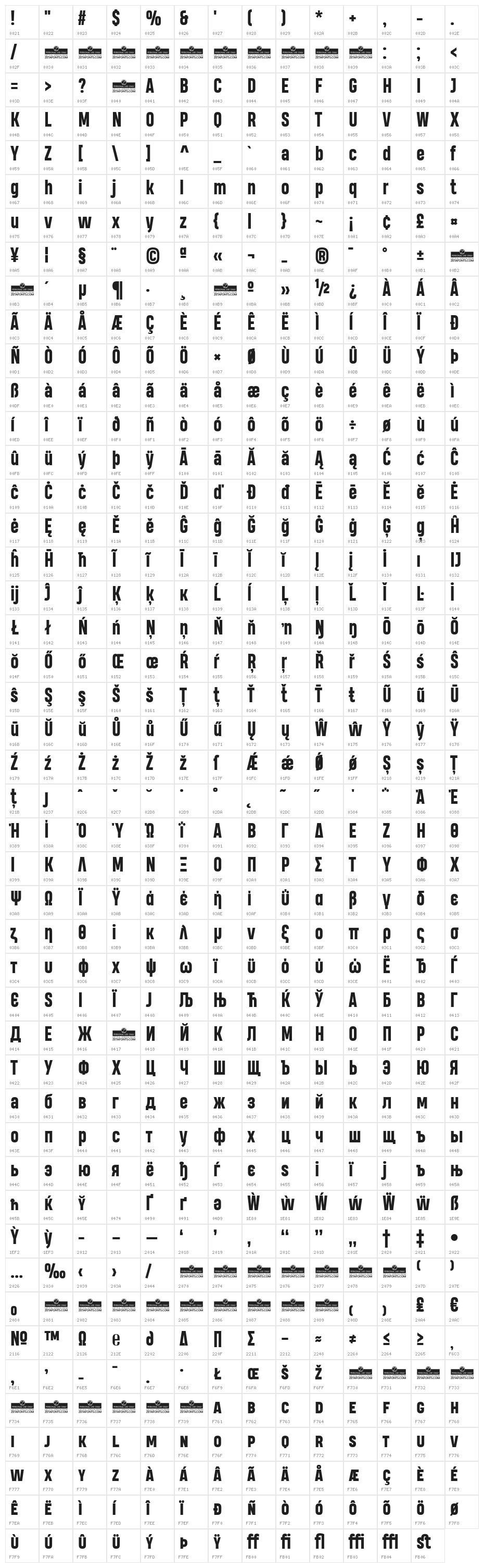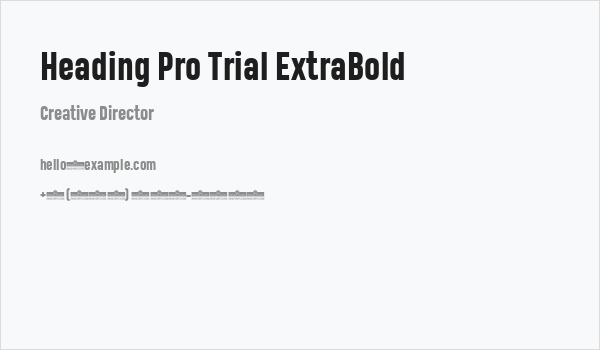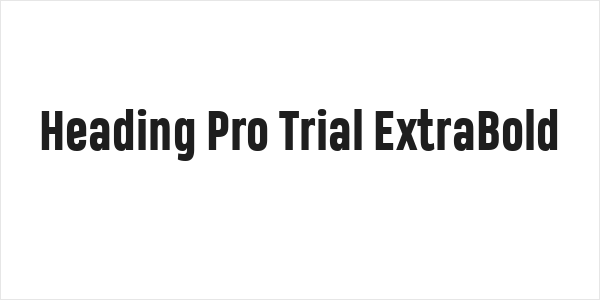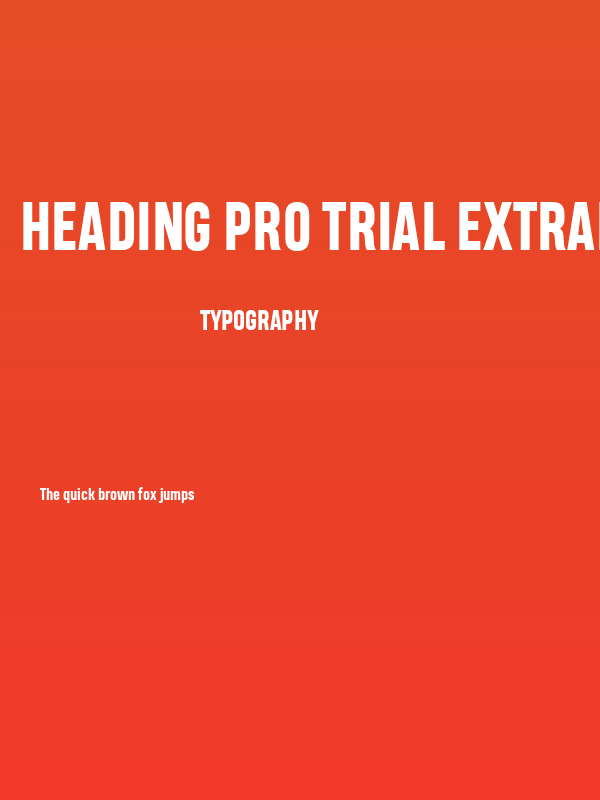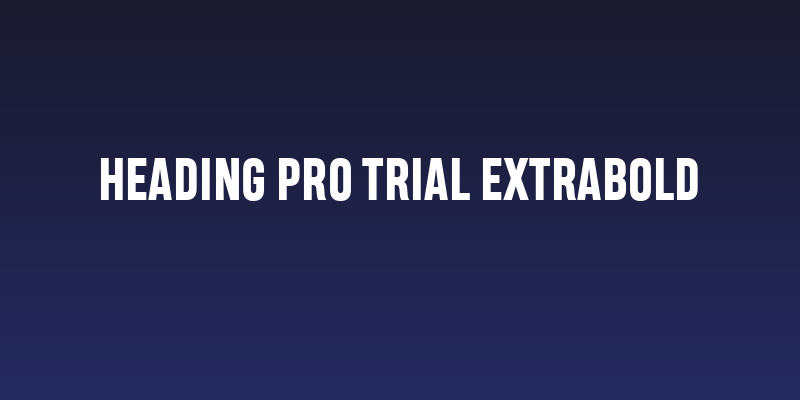
Heading Pro Trial ExtraBold Font
Heading Pro Trial ExtraBold Description
This font is characterized by its bold and assertive appearance, featuring thick strokes and a strong presence. The uppercase and lowercase letters maintain a consistent weight, providing a uniform look across all characters. The font's design is clean and modern, with a slightly condensed width that enhances its impact without sacrificing readability. The spacing between characters is tight, which contributes to its compact and powerful aesthetic. The numerals and special characters are designed to match the boldness of the letters, ensuring a cohesive look throughout. This font is ideal for making statements and grabbing attention, suitable for various design needs.
| Proposed Projects | Ideal for headlines, posters, branding, and advertising where a strong visual impact is needed. |